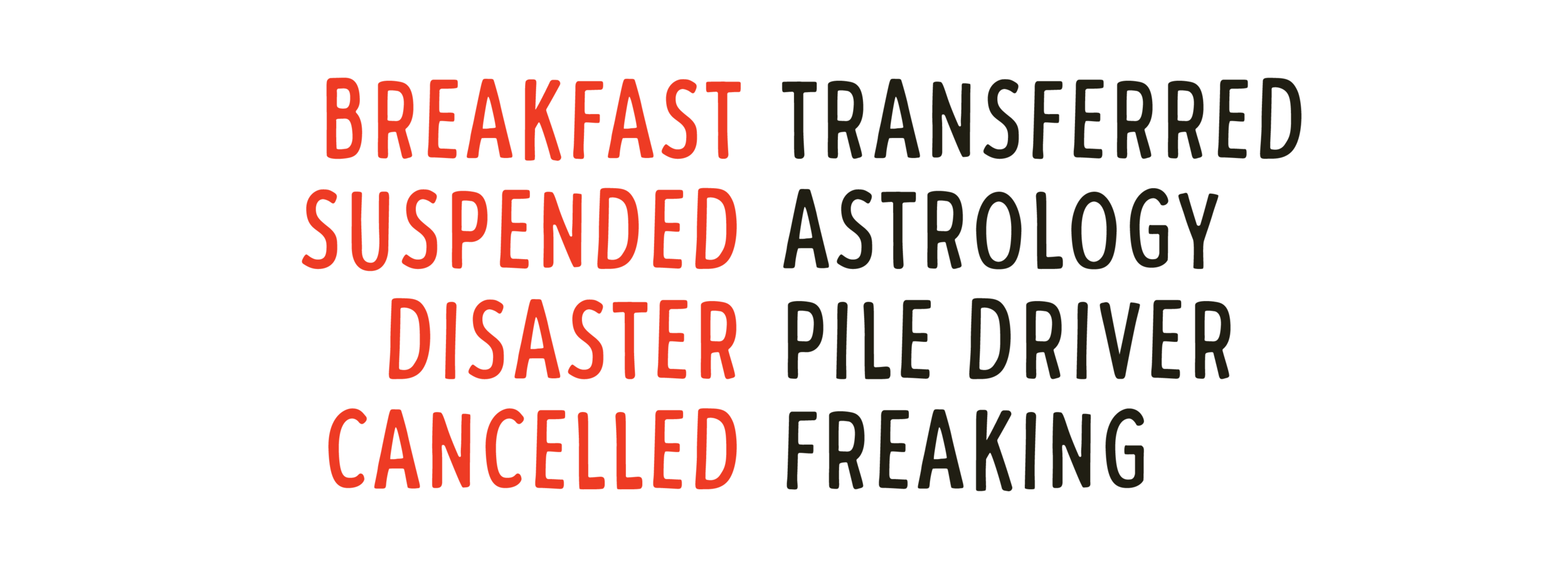
Cheap Thrills
Get you some. YRT Cheap Thrills is a condensed, hand-rendered sans typeface with a fist full of grit. Contains a full alphabet and numerals along with an extended set of punctuation and bonus glyphs. Cheap Thrills shines in badges and logos that want that human-touch aesthetic.